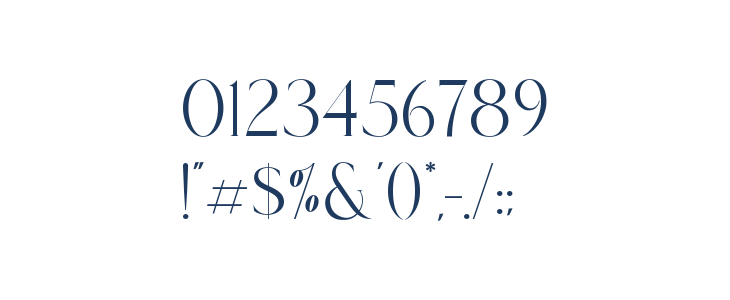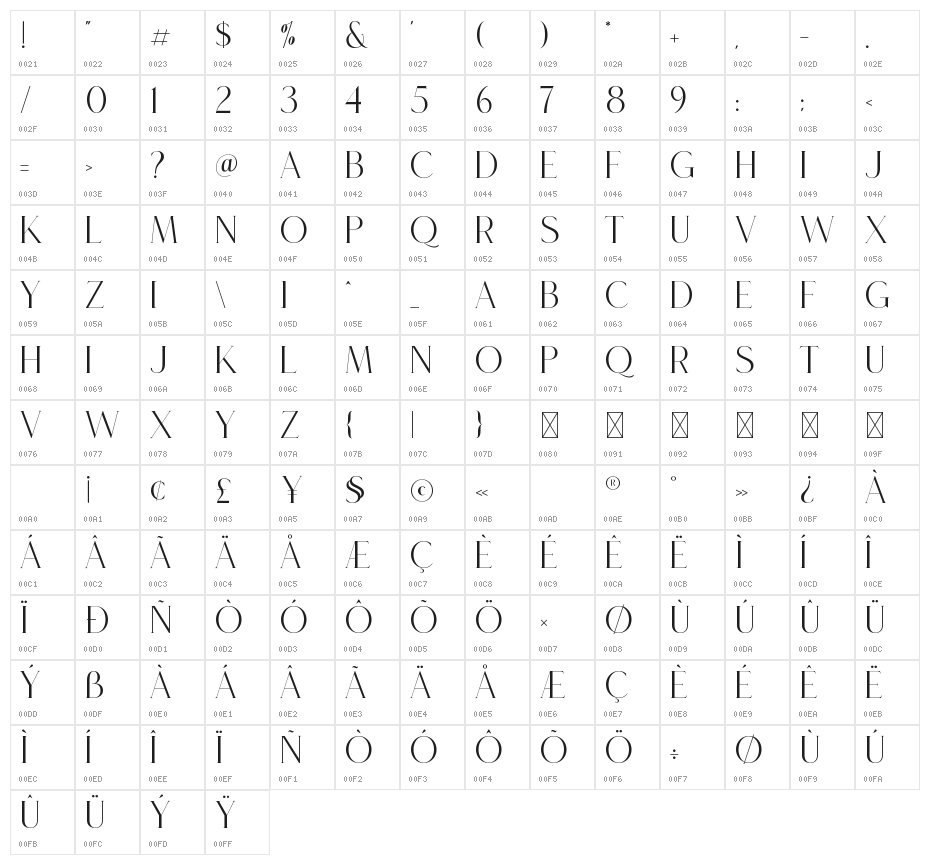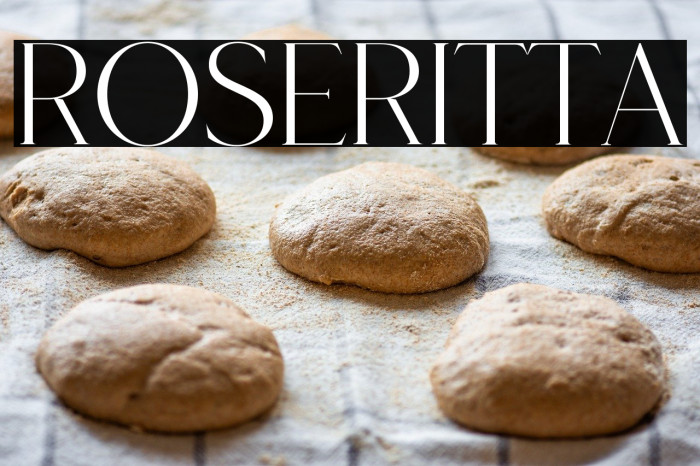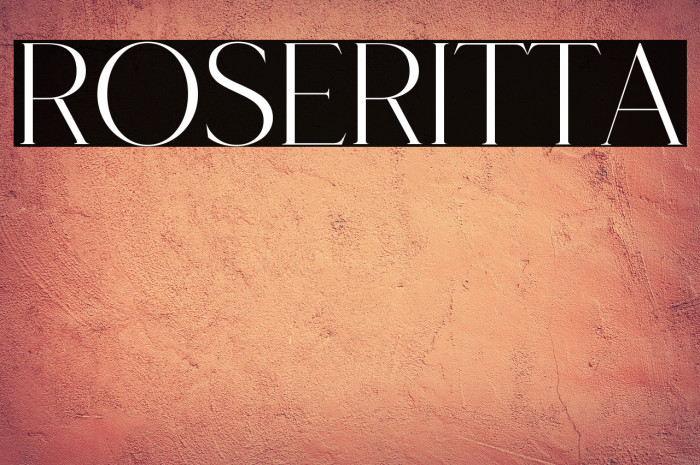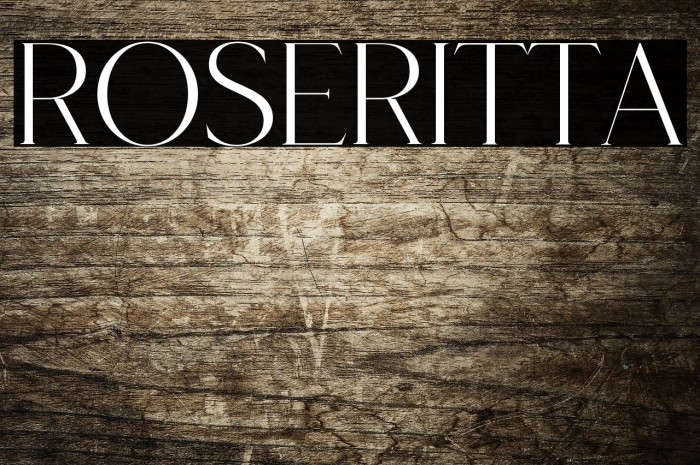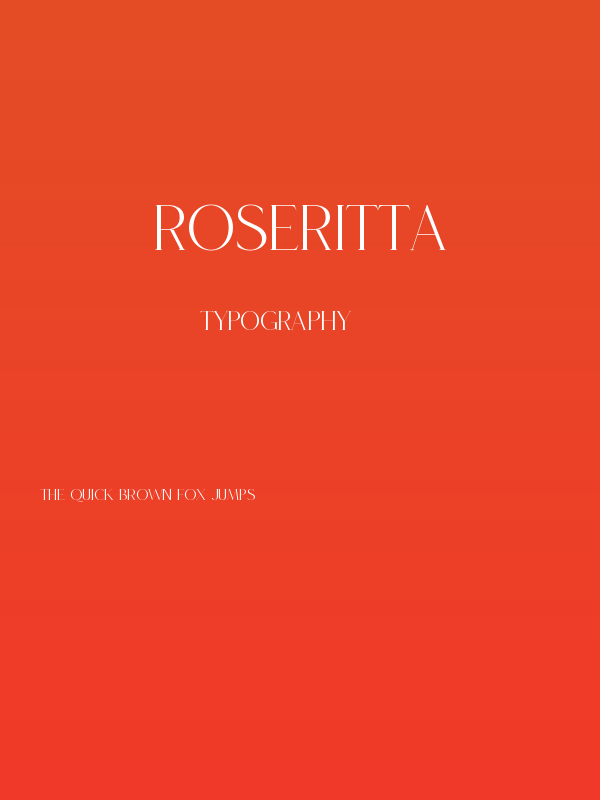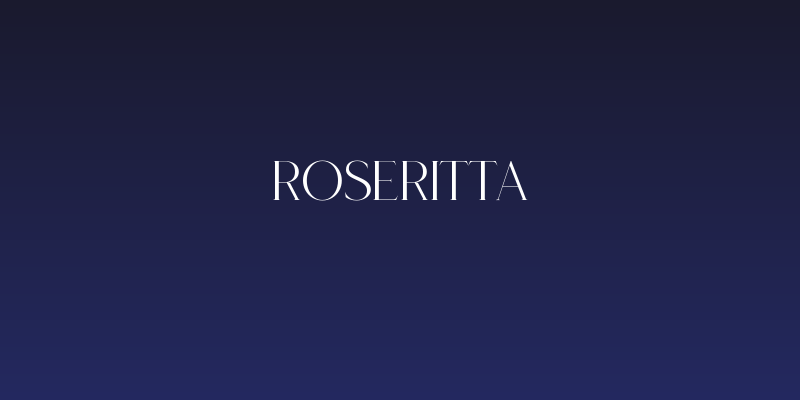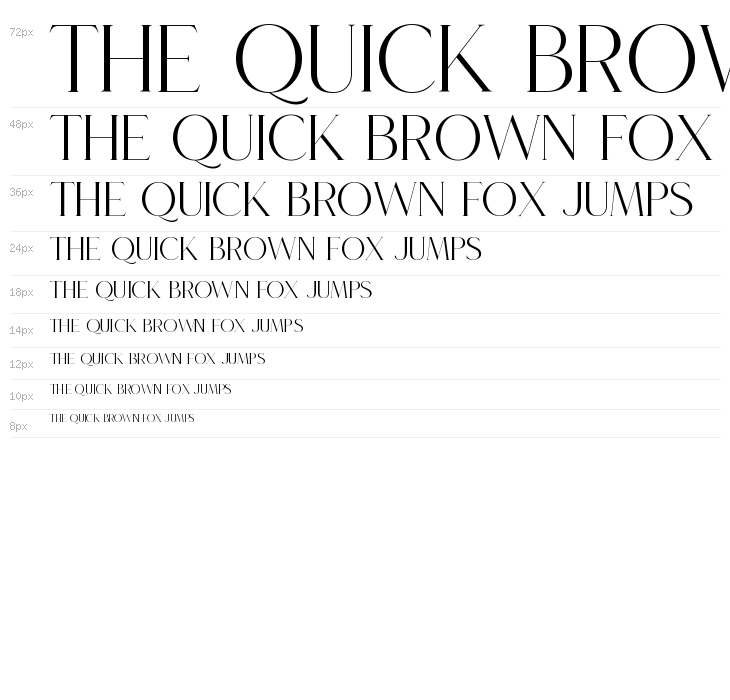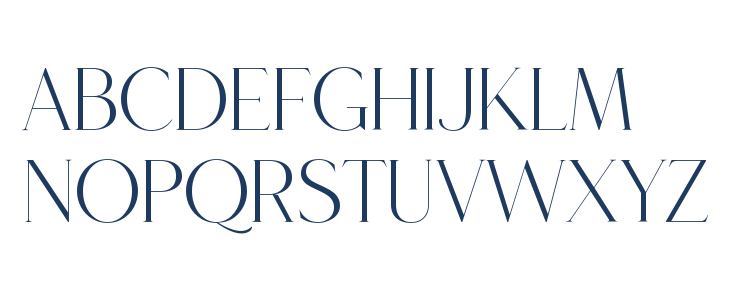
Roseritta Font
Roseritta Description
This elegant typeface features a refined and sophisticated design, characterized by its thin, elongated strokes and high contrast between thick and thin lines. The uppercase letters exhibit a classic serif style with sharp, pointed serifs and a graceful, flowing structure. The lowercase letters maintain a consistent style, offering a harmonious blend of traditional and modern elements. The numerals are designed with a similar elegance, featuring clean lines and a balanced proportion. Special characters are crafted with attention to detail, enhancing the overall aesthetic. This font exudes a sense of luxury and timelessness, making it suitable for a variety of high-end design projects.
| Use Case | Logos, Headlines, Editorial design |
| Proposed Projects | Ideal for luxury branding, editorial design, wedding invitations, and high-end product packaging. |